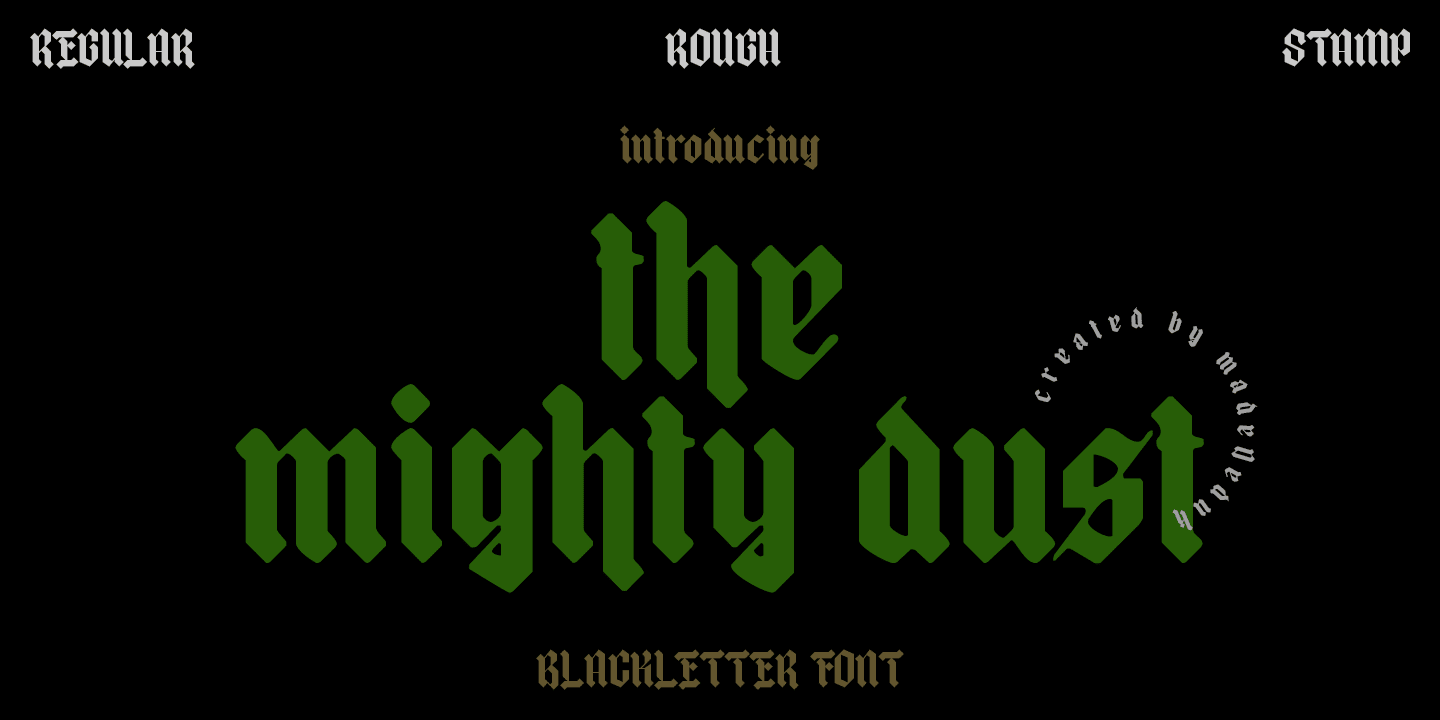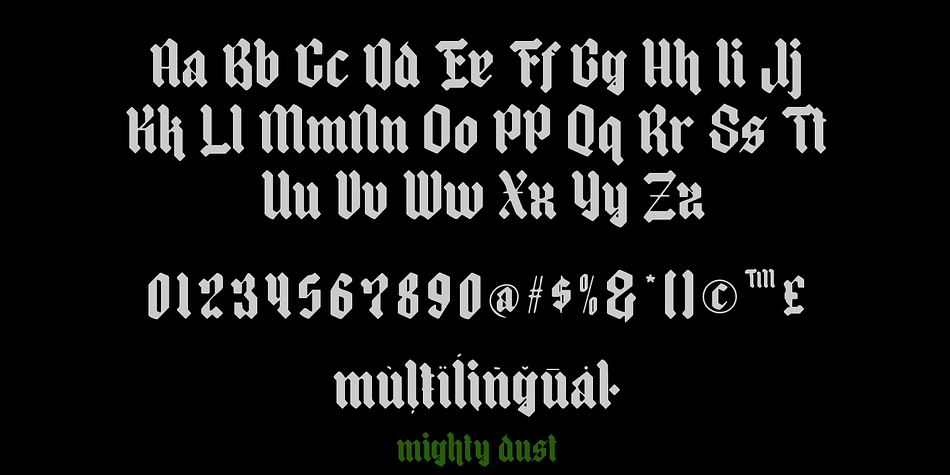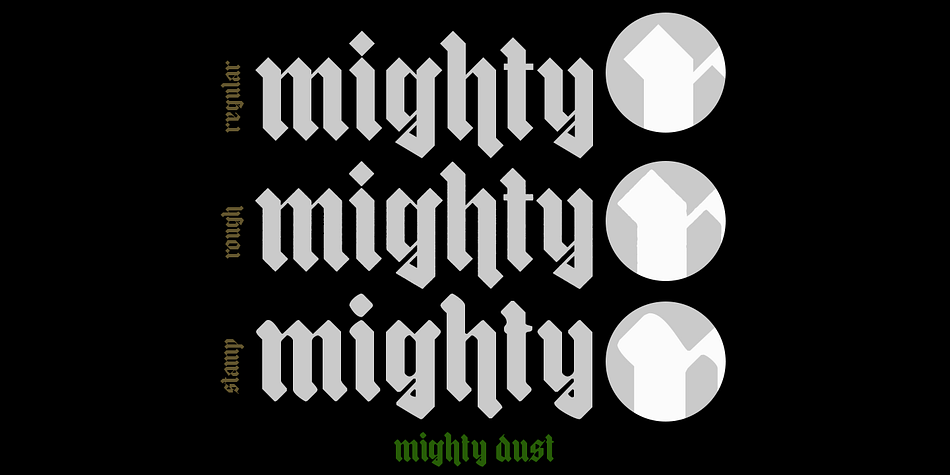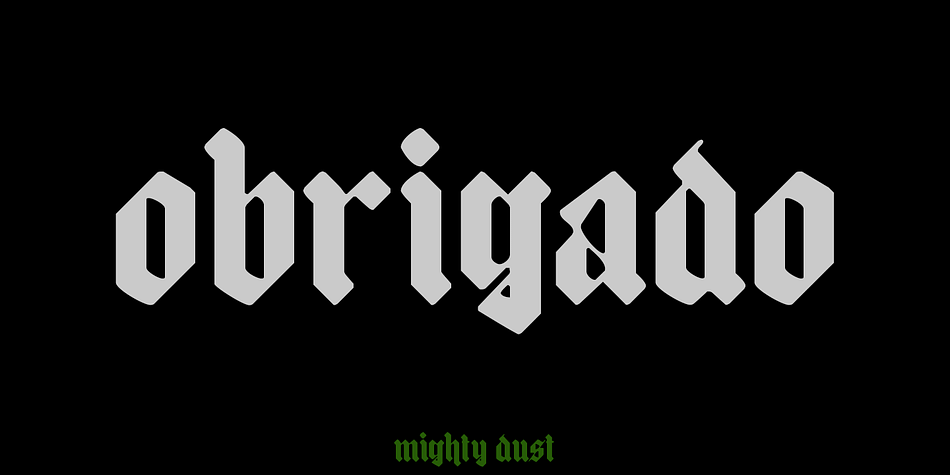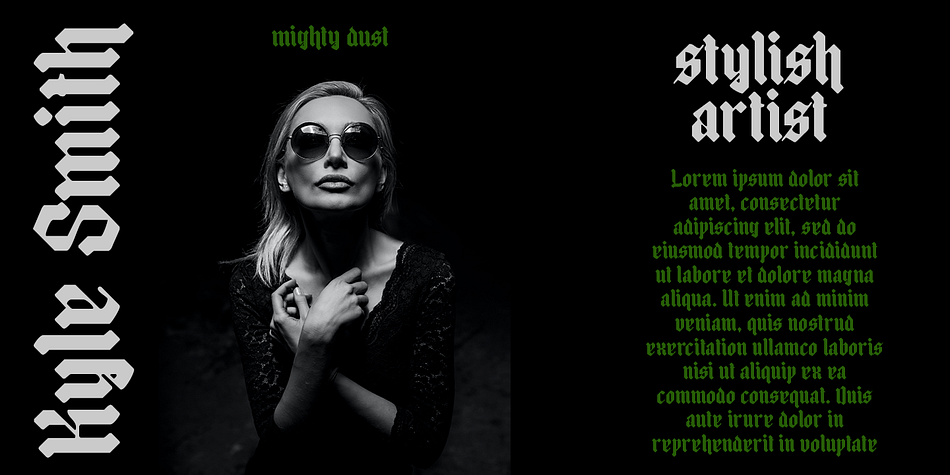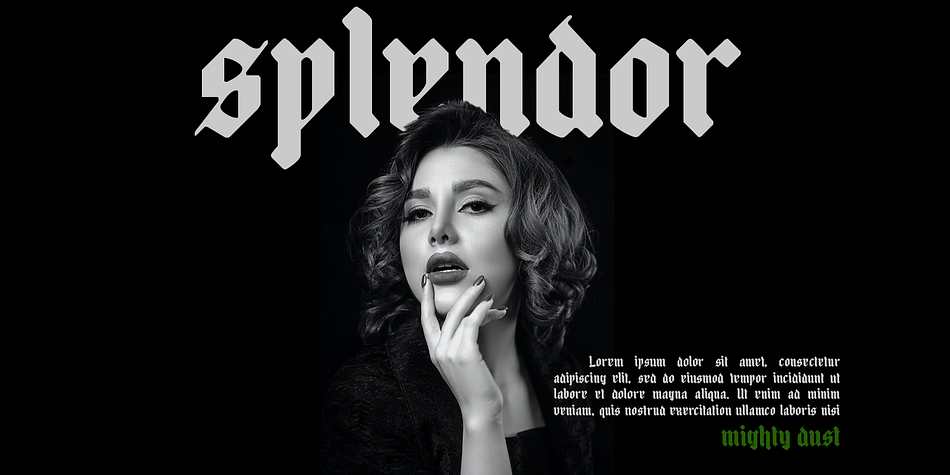
Designed by Suandana Ipandemade, mighty dust is a blackletter font family. This typeface has three styles and was published by madeDeduk.
mighty dust is a blackletter. There’s come with 3 style font with much alternative inside. Suitable to create any branding, product packaging, invitation, quotes, t-shirt, label, poster, logo etc.
- Alternative
- Ligature
Style | Blackletter |